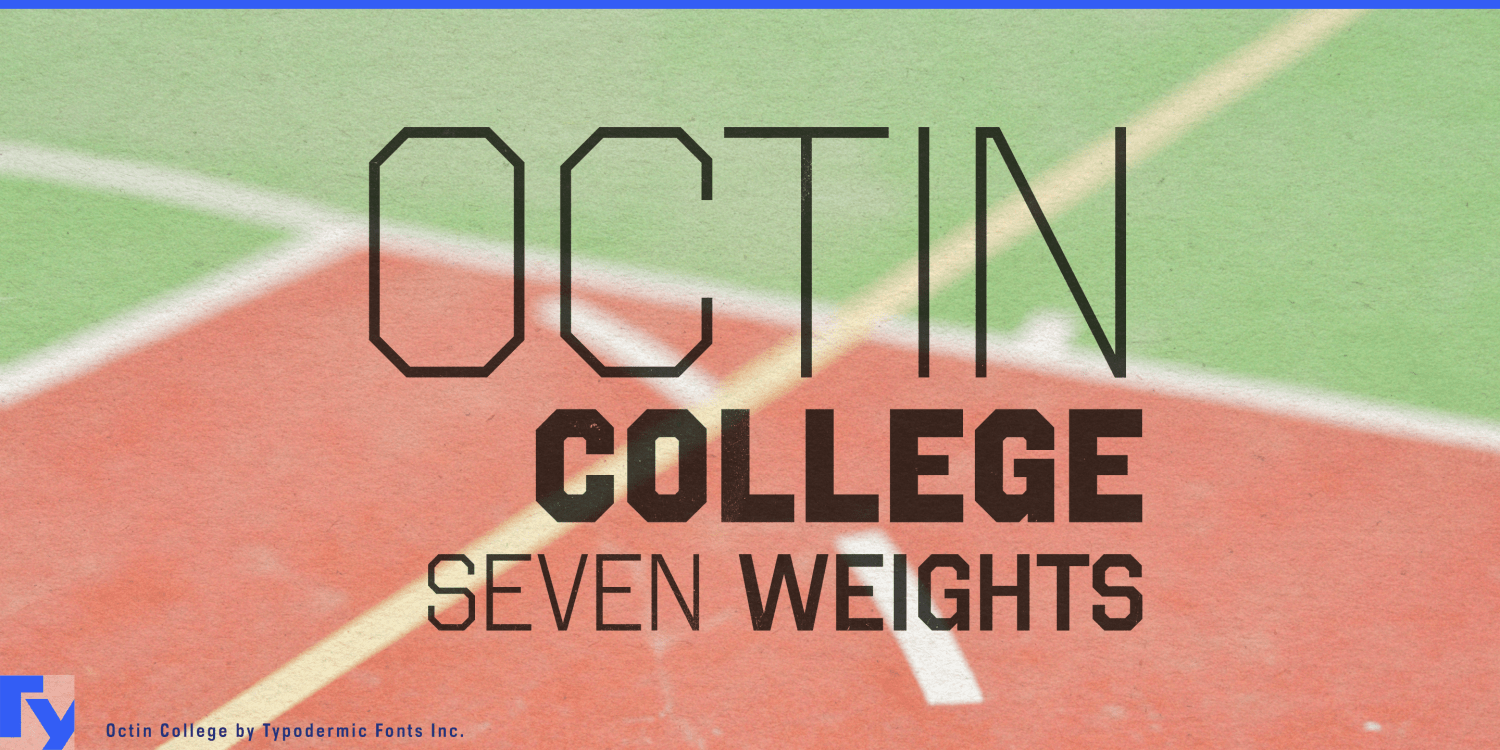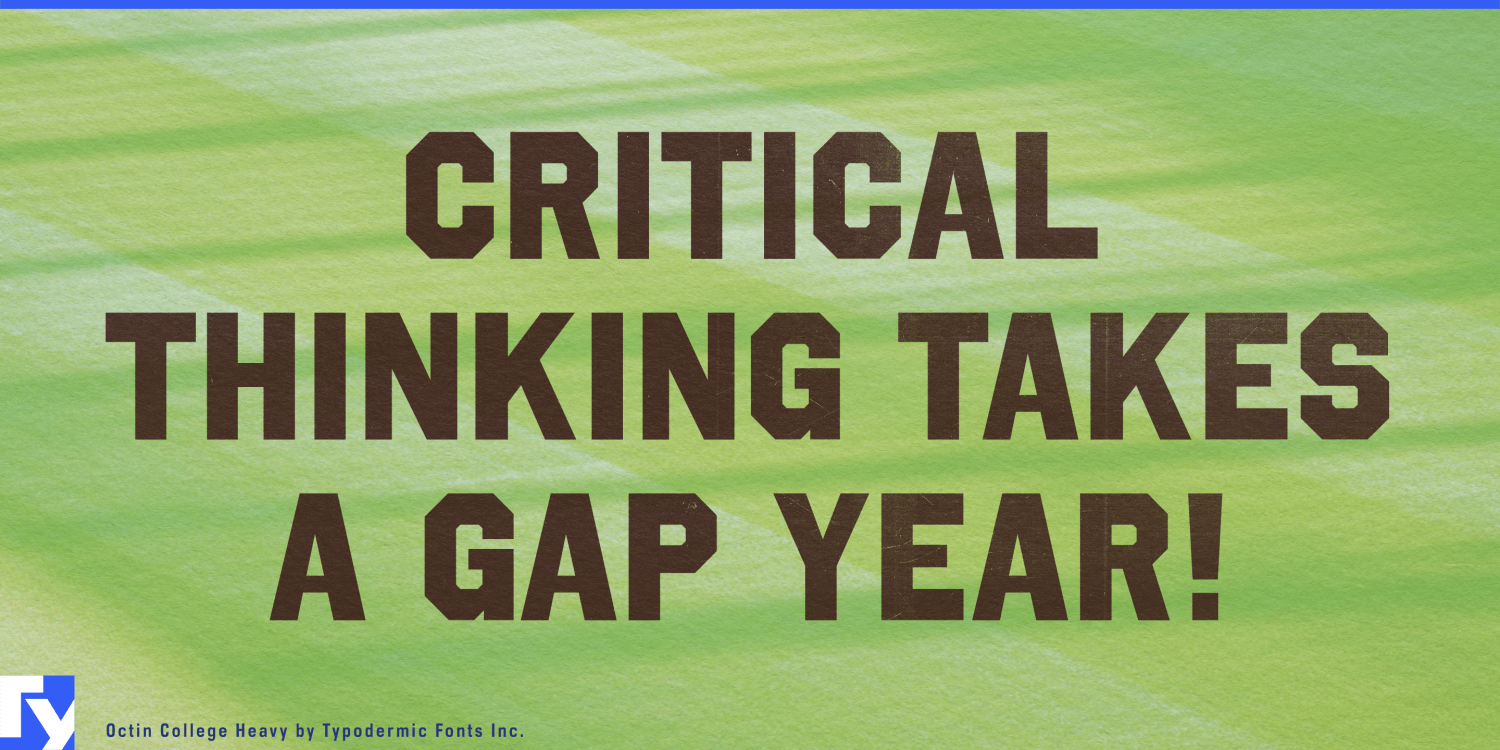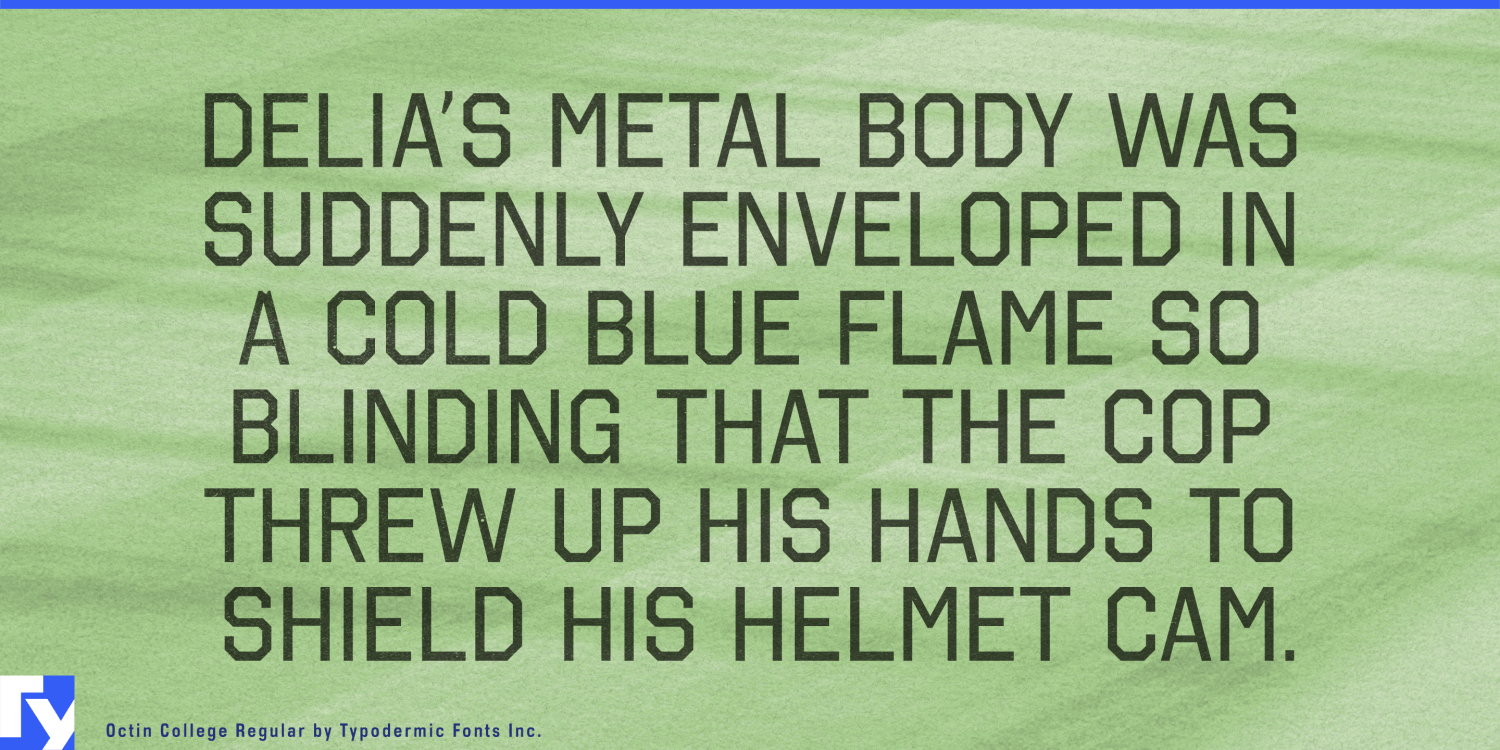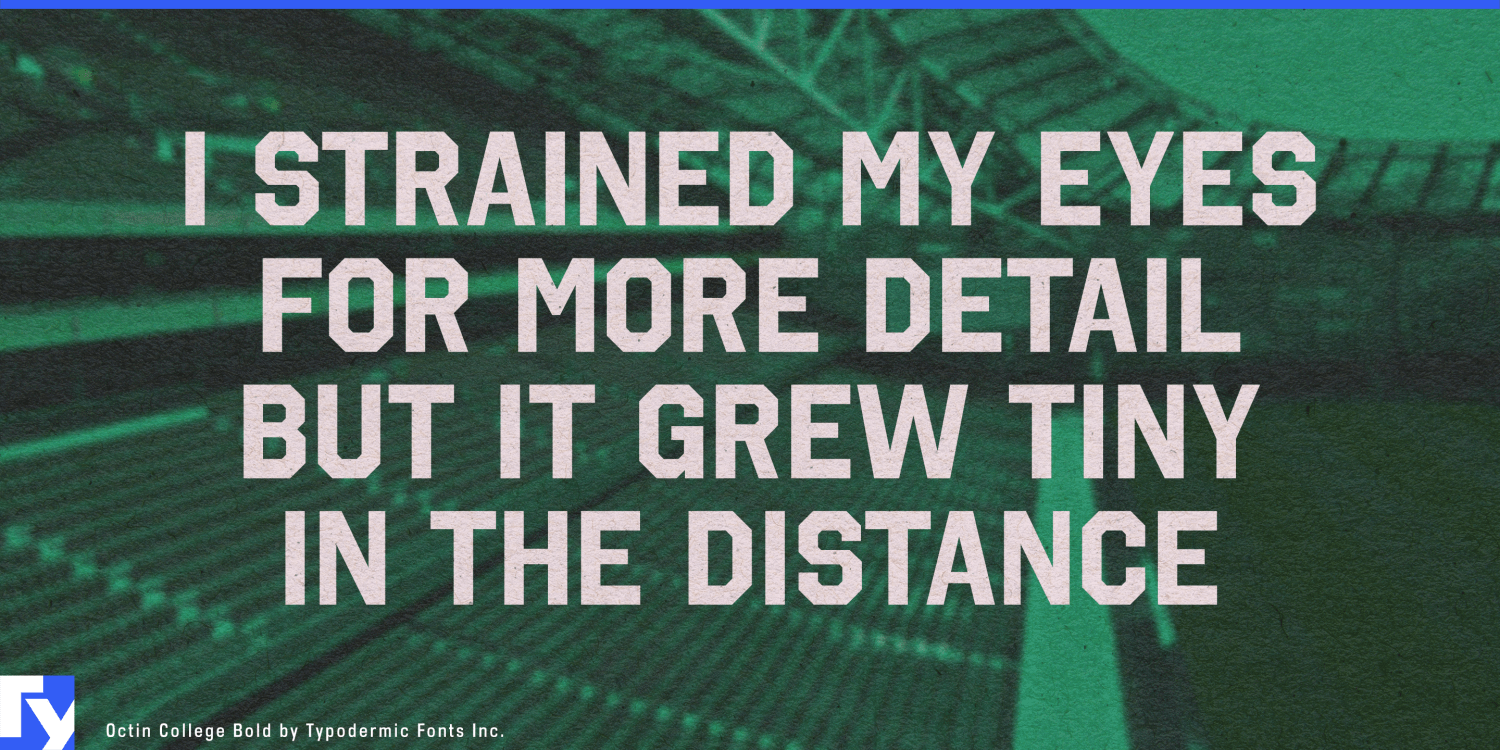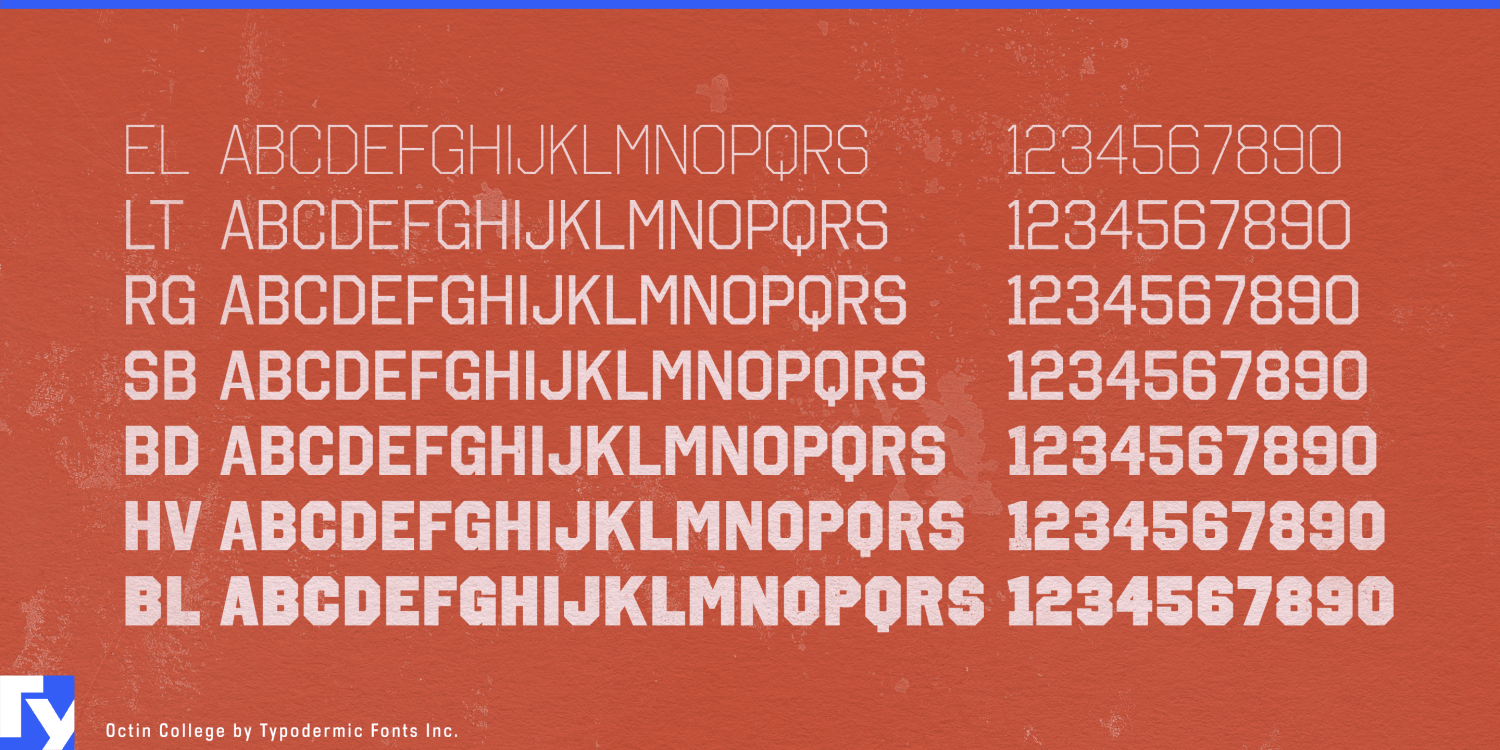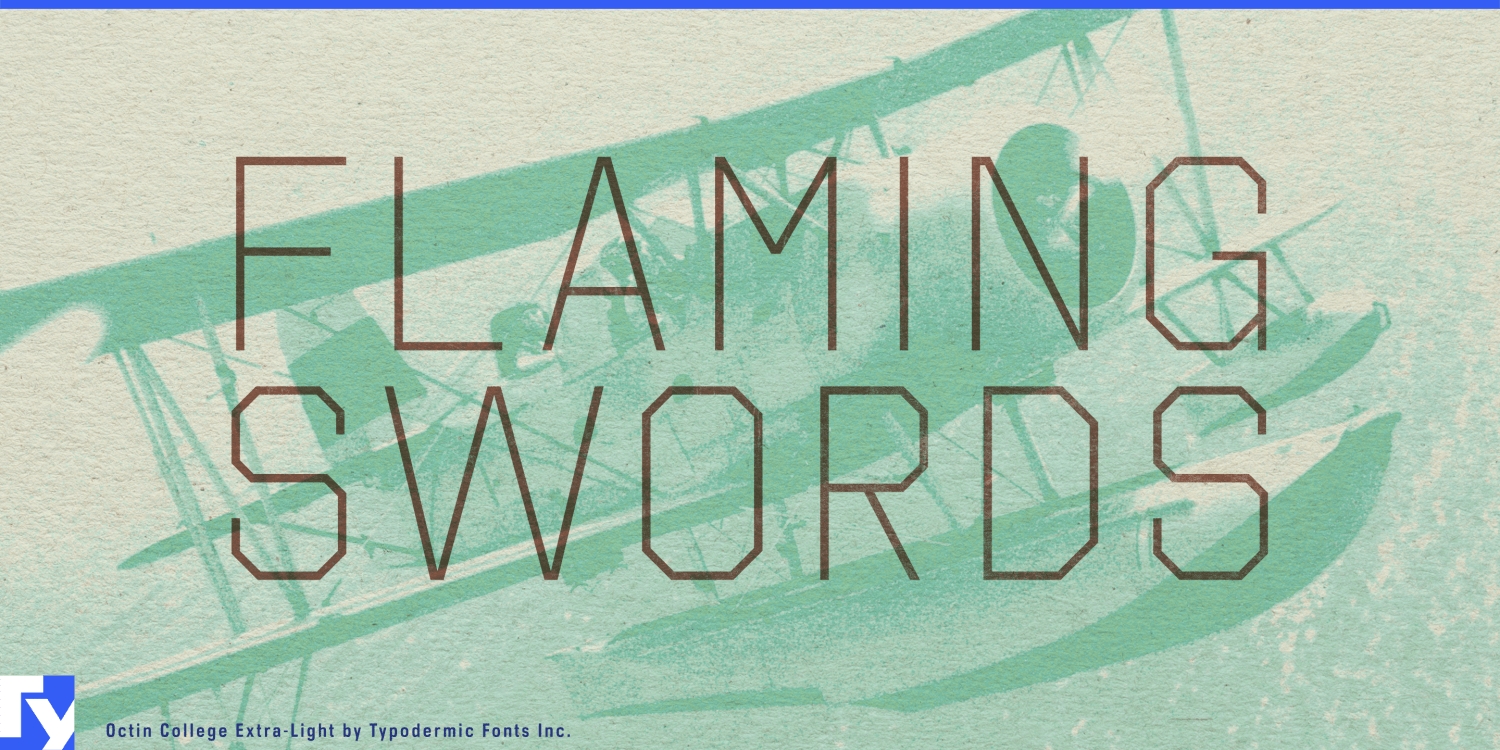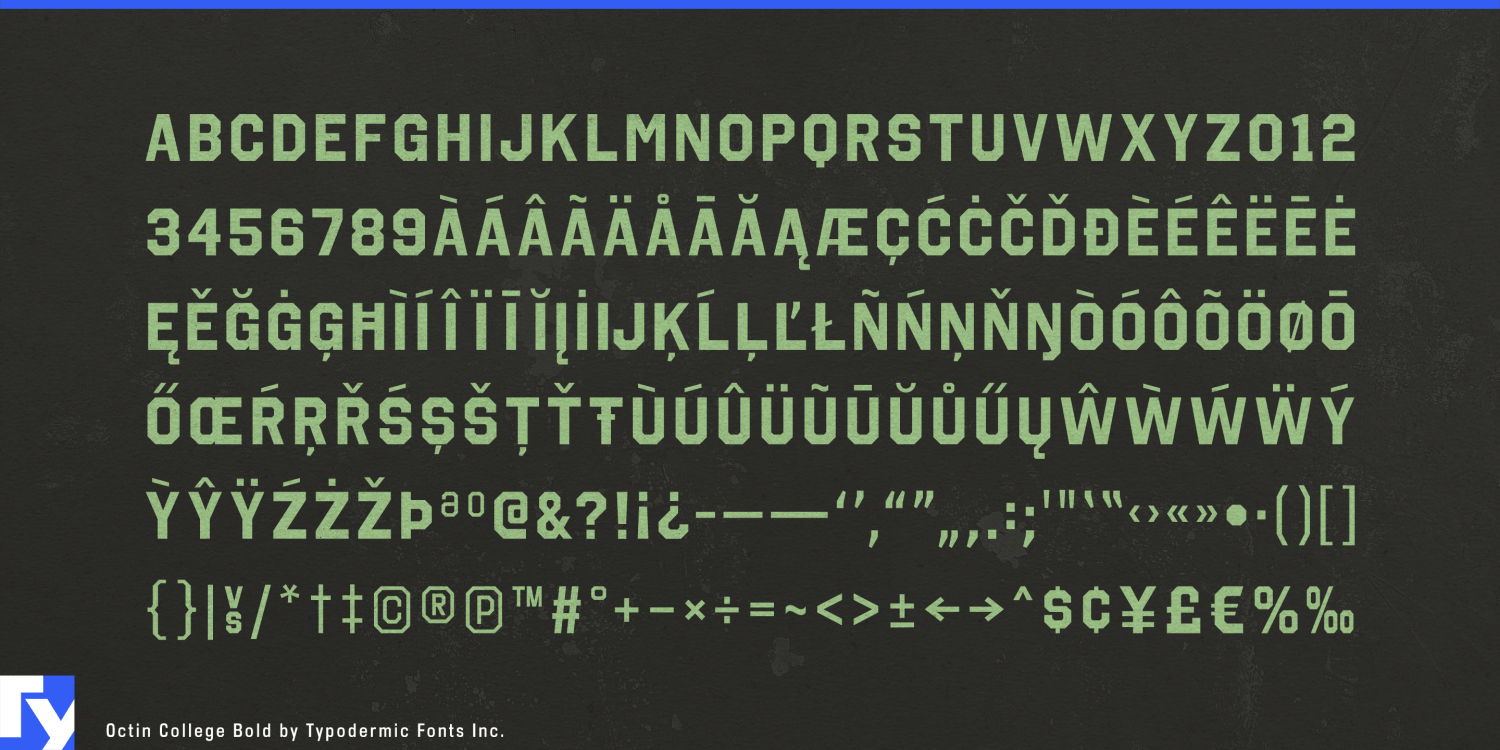
Octin College
Not every department has a team, but they still need to look like they belong to the university. Academic branding often falls between traditional varsity lettering, which can make everything feel athletic, and neutral corporate typography, which loses the character of campus life. Octin College offers another route.
Its octagonal, all-caps construction carries the visual DNA of collegiate lettering without the slab serifs that usually turn the message into sports branding. Seven weights from Extra-Light through Black let the same structure move from precise technical display type to emphatic institutional headlines.
Engineering schools, architecture faculties, computer-science departments, robotics programs and applied-science institutes are especially well suited to that balance. Recruitment campaigns, open-day graphics, program names and exhibition panels can feel recognizably collegiate without looking like they belong to the football team. The lighter weights emphasize precision and experimentation; heavier styles carry faculty names, event titles and major campaign headlines.
Research and innovation programs present another strong use. Capstone exhibitions, research fairs, startup showcases, prototype demonstrations and university-industry expos need titles, discipline names, project categories and booth headings that combine energy with institutional identity. Admissions campaigns, campus open houses, welcome-week systems and student-service graphics can use the same family to build school spirit beyond athletics.
University hackathons, debate tournaments, engineering challenges, robotics contests, architecture competitions and entrepreneurship events give Octin College a competitive role without turning every event into a game. Faculty merchandise, maker-space graphics, innovation hubs and engineering workshops extend the same visual language into shirts, facility names and environmental display typography.
Octin College is part of a coordinated series. Octin Sports carries the octagonal idea into athletic slab-serif territory; Octin Stencil shifts it toward tactical and logistical marking; Octin Prison makes the structure heavier and more restrictive; Octin Vintage adds worn heritage texture; and Octin Spraypaint applies a fresher painted surface. Octin College is the branch for academic identity itself: collegiate lettering without making every project look like game day.